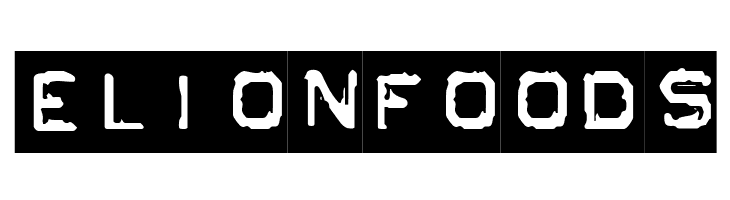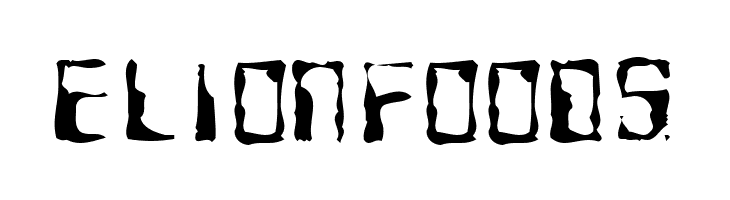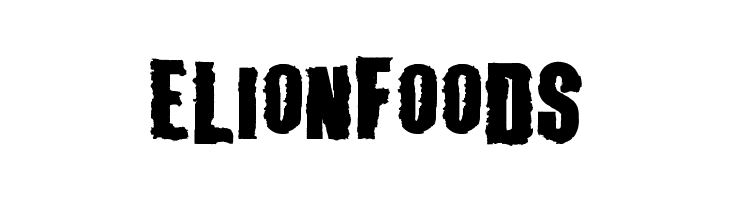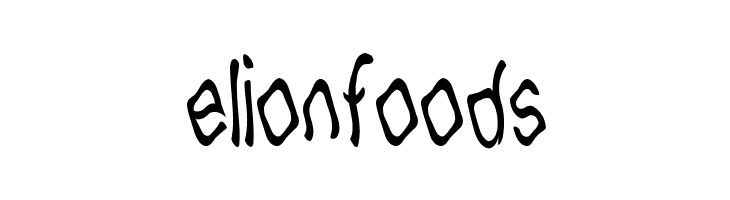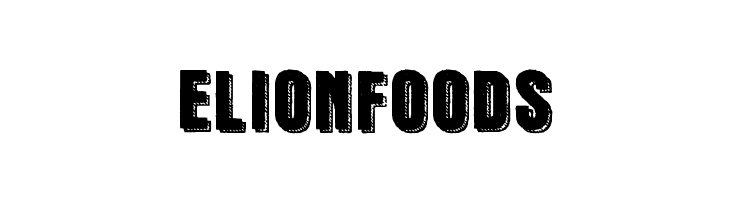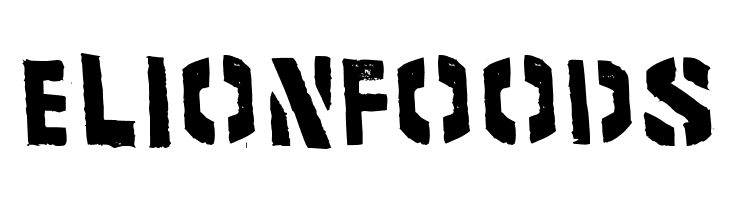
A bold, distressed font with an irregular, grunge aesthetic.
A bold, distressed font with a rugged, vintage style.
A whimsical, hand-drawn font with an organic, playful style.
A distressed, grungy font with uneven strokes and a hand-drawn appearance.
A bold, distressed font with a chaotic and textured appearance.
A bold, distressed font with a vintage, industrial feel.
A bold, distressed stencil-style font with a rugged, industrial look.